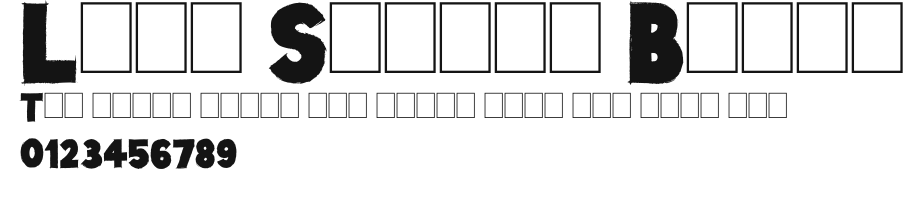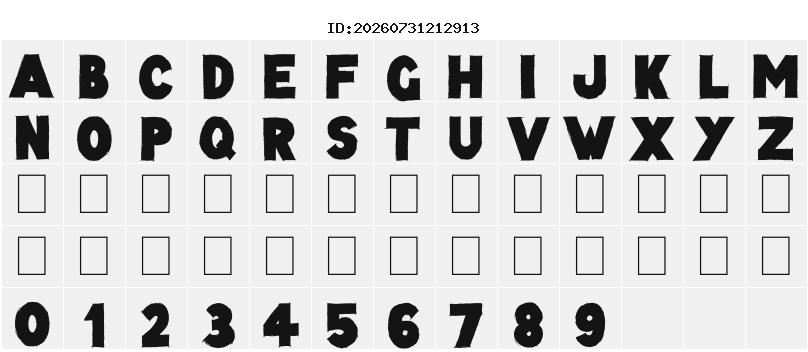
• Font Name: Lazy Sketch Black
• Designer: IMAGEX
• Description: This font was created using Scanahand from High-Logic.com
About Lazy Sketch Black.ttf
Lazy Sketch Black.ttf is a modern, elegant sans-serif font designed for ultimate readability and visual harmony. Perfect for branding, headlines, web design, and print materials.